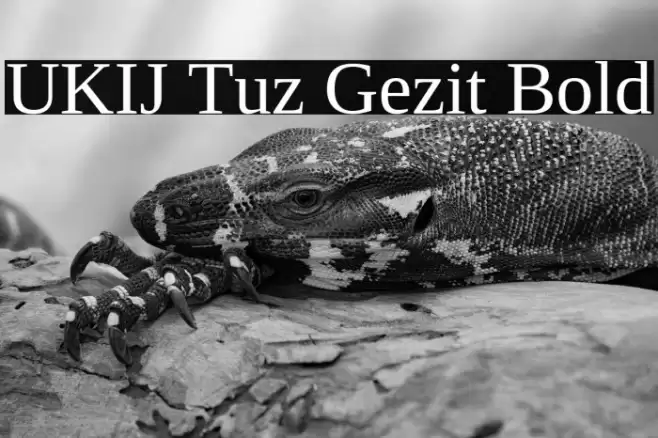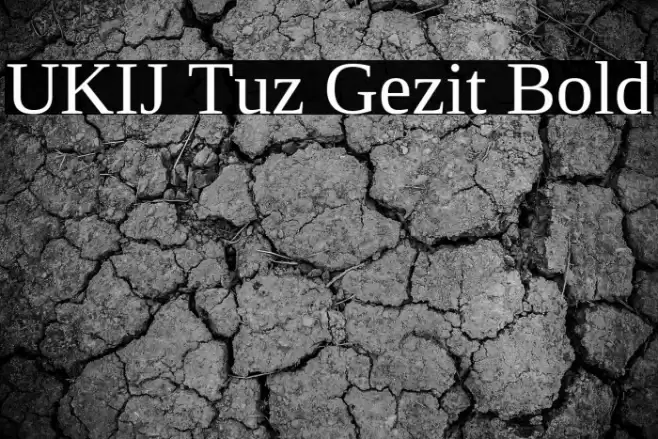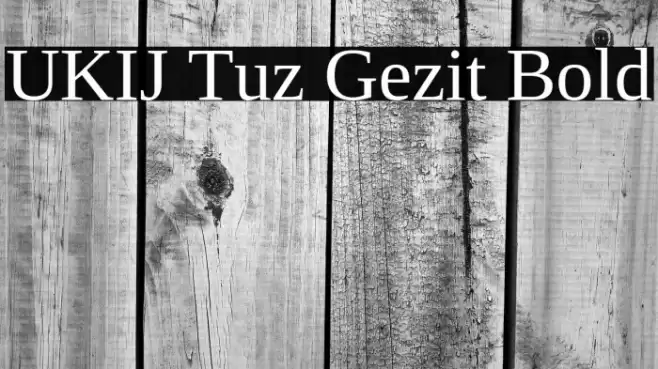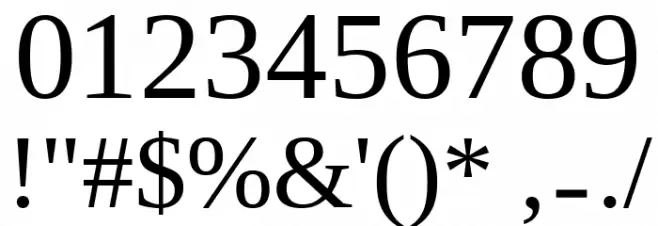
UKIJ Tuz Gezit Bold Font
UKIJ Tuz Gezit Bold Description
This font presents a classic serif style with a bold weight, characterized by its strong and authoritative presence. The uppercase letters are well-proportioned, with a slight contrast in stroke thickness that adds elegance without compromising readability. The lowercase letters maintain a consistent style, with smooth curves and sharp serifs that enhance the overall aesthetic. The numerals are clear and distinct, making them suitable for various applications. Special characters are included, providing versatility for different types of content. The font's design is both timeless and adaptable, making it suitable for a wide range of uses.
A bold, classic serif font with elegant strokes and strong readability from Serif fonts.
- Proposed Projects: Ideal for book covers, formal invitations, editorial layouts, and branding materials.
- Overall Style: Classic